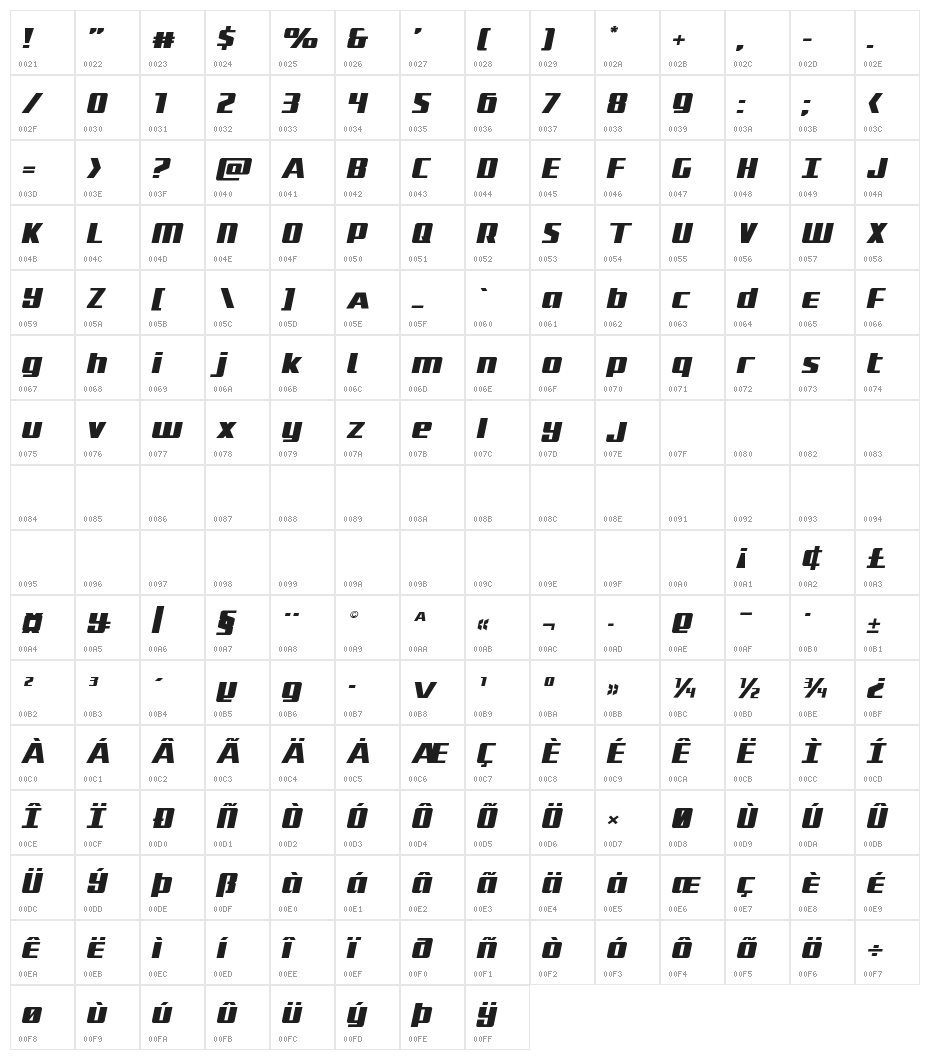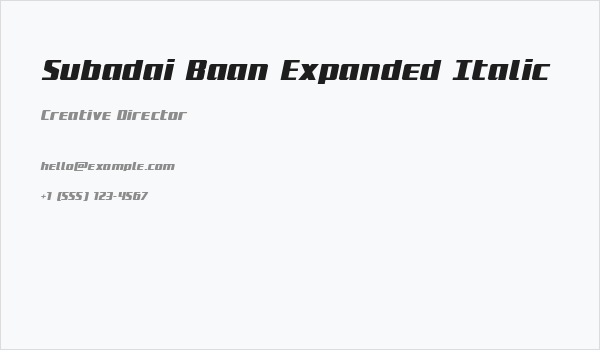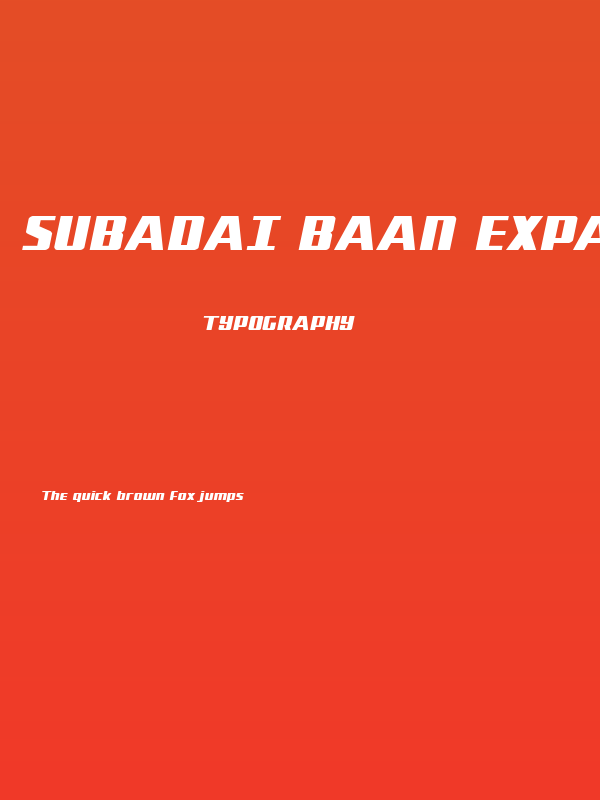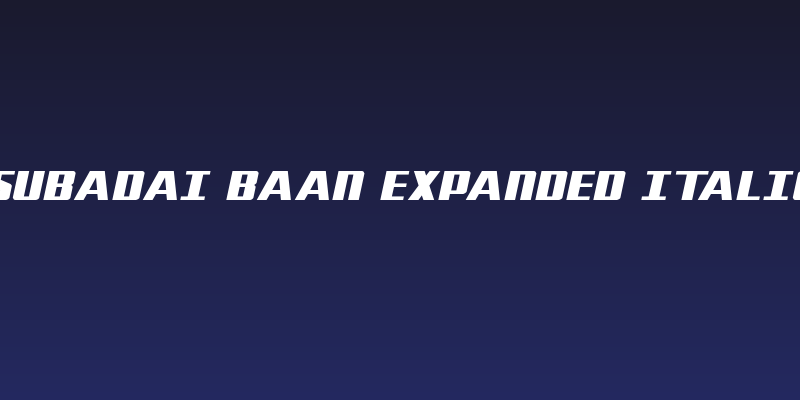
Subadai Baan Expanded Italic Font
Subadai Baan Expanded Italic Description
This font features a bold and dynamic style with an italic slant, giving it a sense of motion and energy. The characters are expanded, providing a wide and impactful appearance. The strokes are thick and consistent, contributing to a strong visual presence. The design is modern and slightly futuristic, making it suitable for attention-grabbing headlines or branding. The uppercase and lowercase letters maintain a uniform style, ensuring readability while adding a unique flair. The numbers and special characters are designed to match the boldness and style of the alphabet, ensuring a cohesive look across all text elements.
| Proposed Projects | Ideal for branding, sports team logos, dynamic posters, and modern advertisements. |